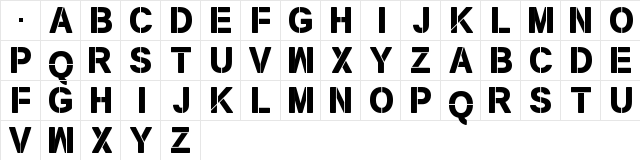
New Stencil tfb Regular
Design Context for New Stencil tfb Typeface
New Stencil tfb has the rough pragmatism of spray-painted stencil signage, adding a raw, street-level authenticity to designs.
Ideal for industrial branding, streetwear, military-adjacent aesthetics, and urban signage projects.
Pro Tip: Pair New Stencil tfb with raw, utilitarian design elements — exposed concrete textures, flat colour, and minimal ornamentation suit it well.